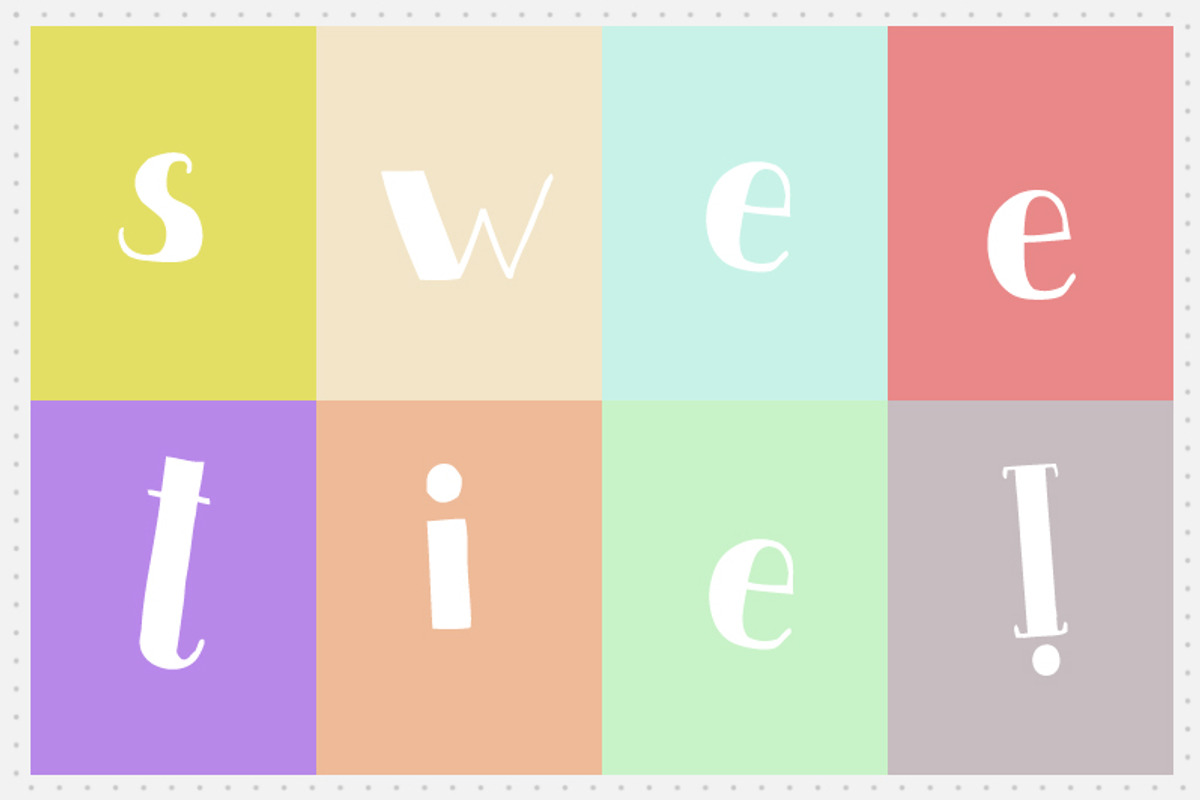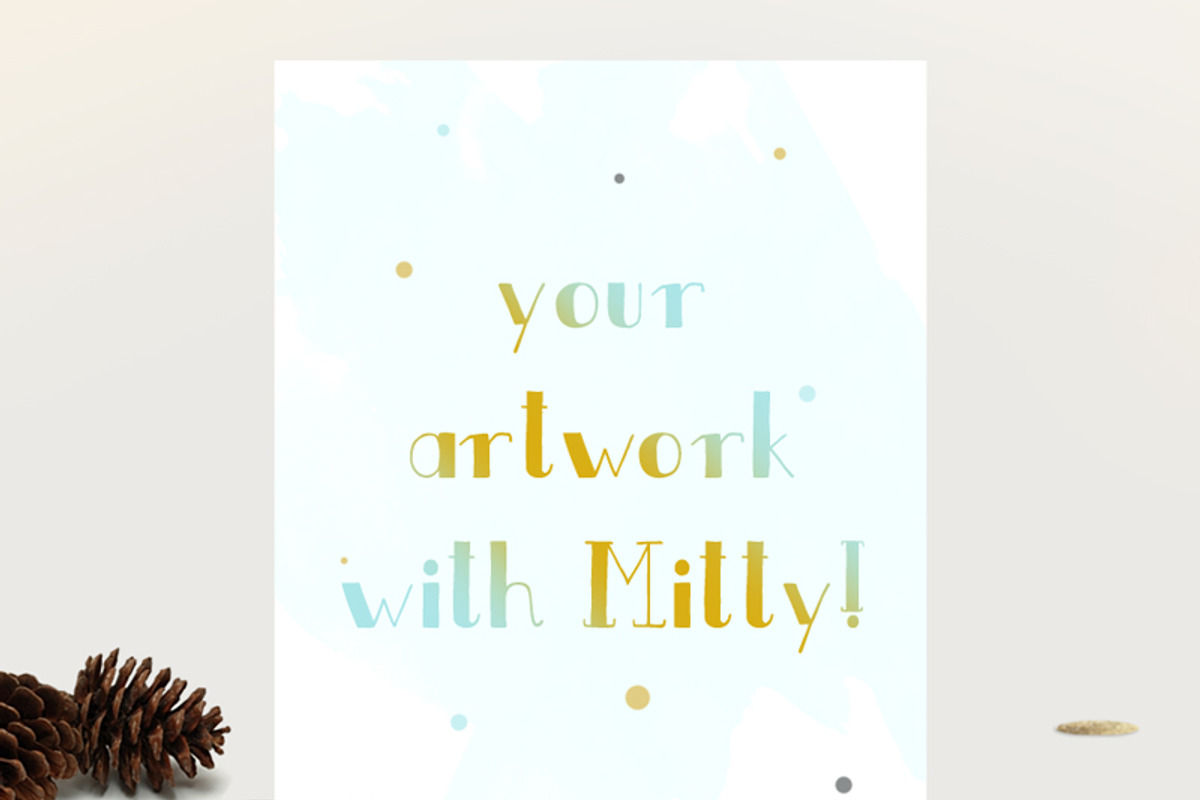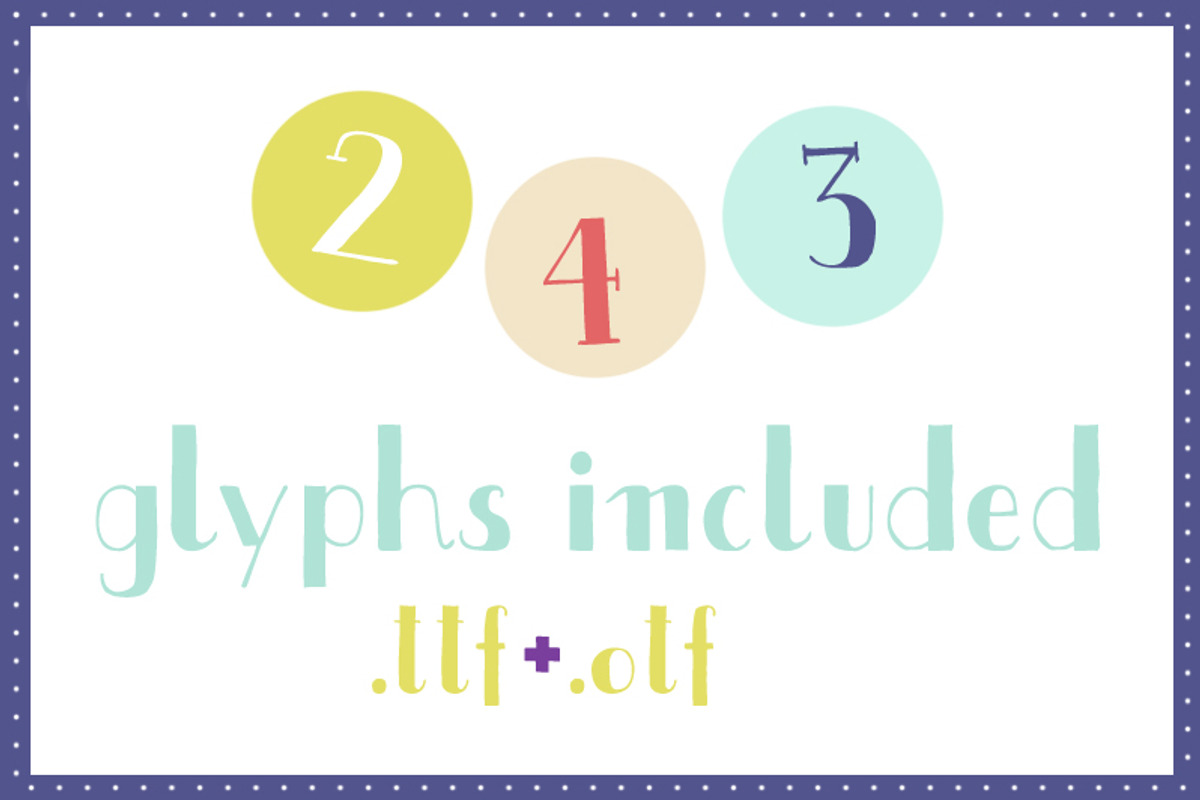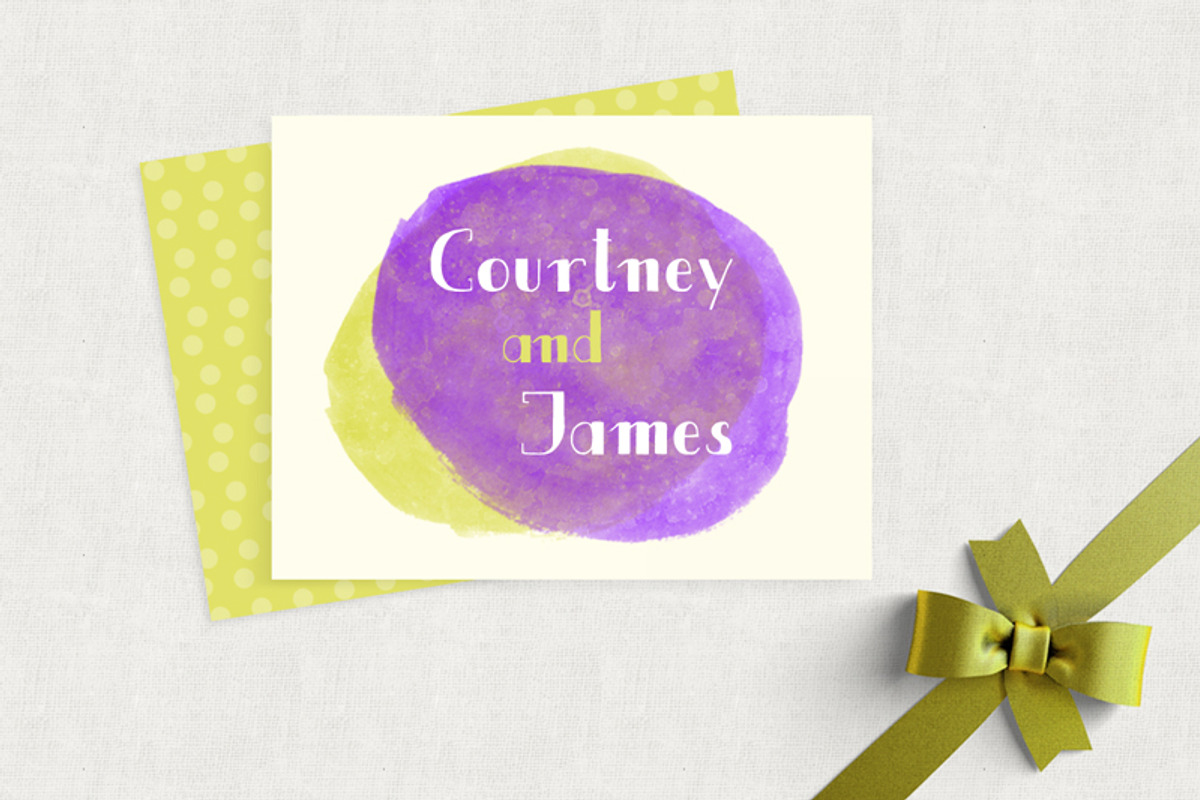
Mitty Hand-drawn Font
Mitty Hand-drawn Font by Frisk Shop is a font selected for branding, posters, packaging, typography.
Why Mitty Hand-drawn Font is worth a look
Mitty Hand-drawn Font by Frisk Shop fits naturally into Branding, posters, packaging, typography.